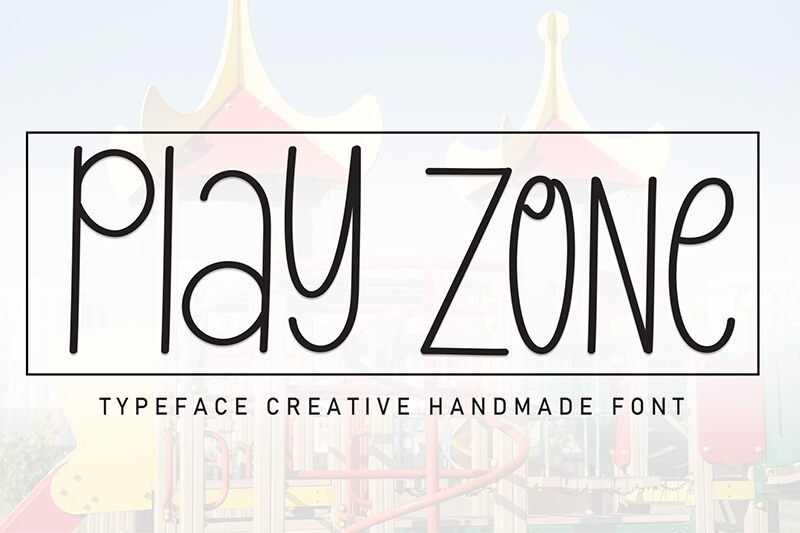
Play Zone font by Andi Moz is a free handwritten font showcasing a casual and friendly style. The designing process was likely handmade, thus bringing a truly unique font that delivers a flexible and informal message. Informal and unconventional, the font has a modern and inviting look which makes the solitary style a wonderful choice for fun and creative purposes.
The relaxed mood translates smoothly into the context where the font is used. This includes playful branding and advertising, social media quotes, captions and profiles, posters, flyers, invitations and greeting cards, doodles, patterns, comics, and cartoons.
This is a sweet and friendly handwritten display font. Cute and fun, this font is ideal for writing wedding invitations, cards, or any other design that needs a playful touch!